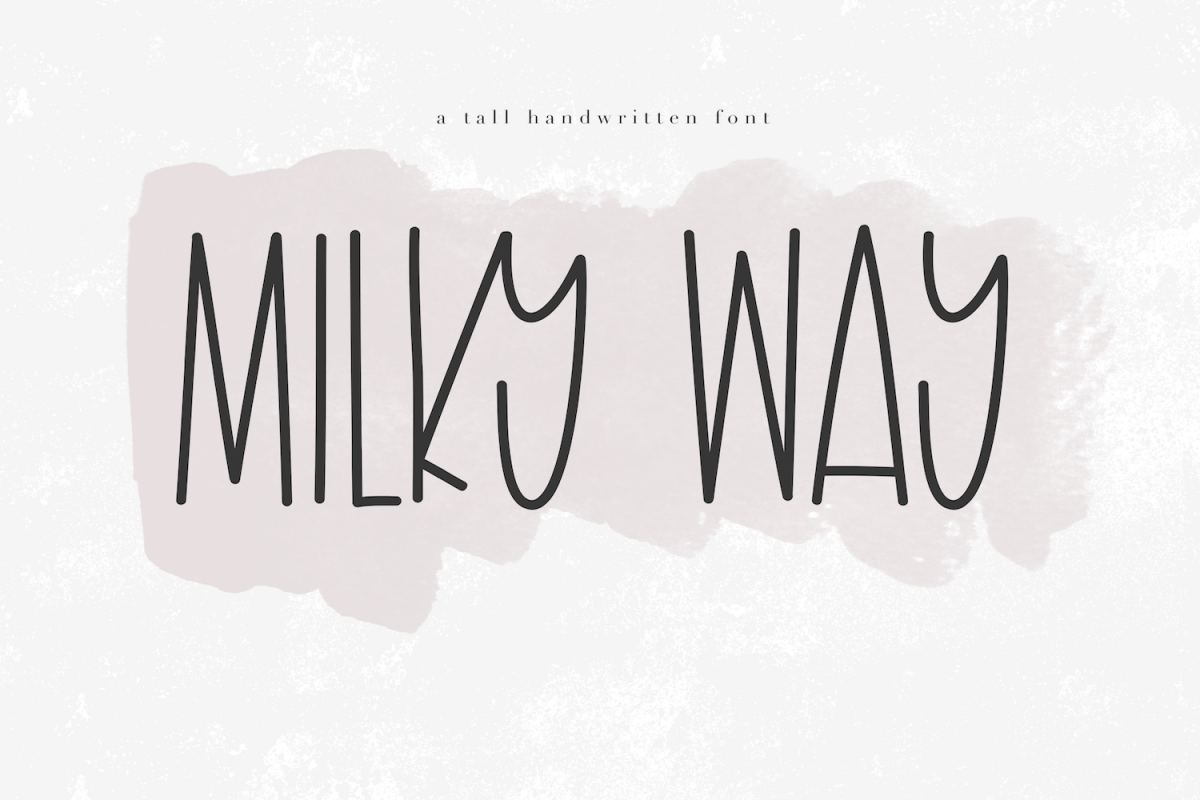
Milky Way - A Tall Handwritten Font
Milky Way is a fun & tall handwritten font.
This font is perfect for quotes, headings, blogs, logos, invitations and more!
This font does include accent characters.